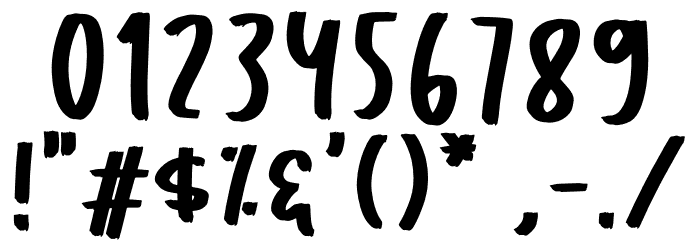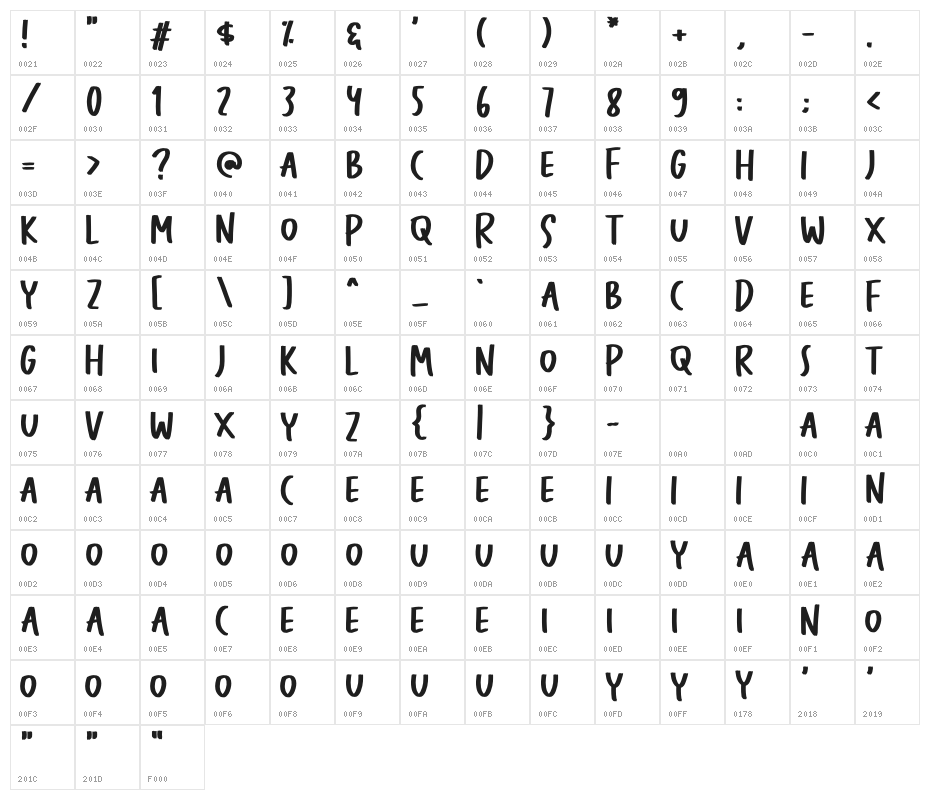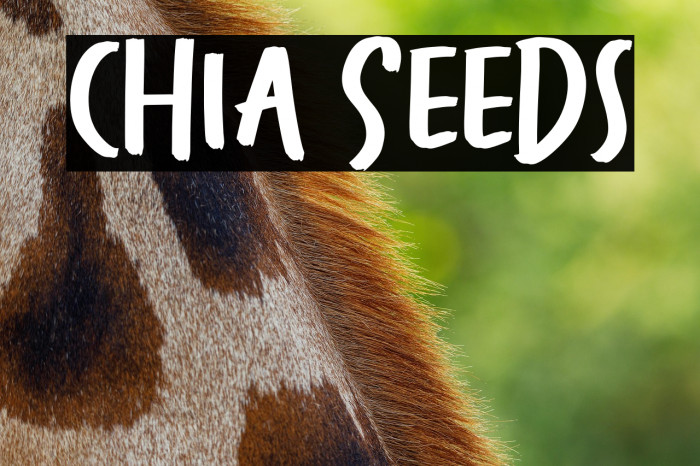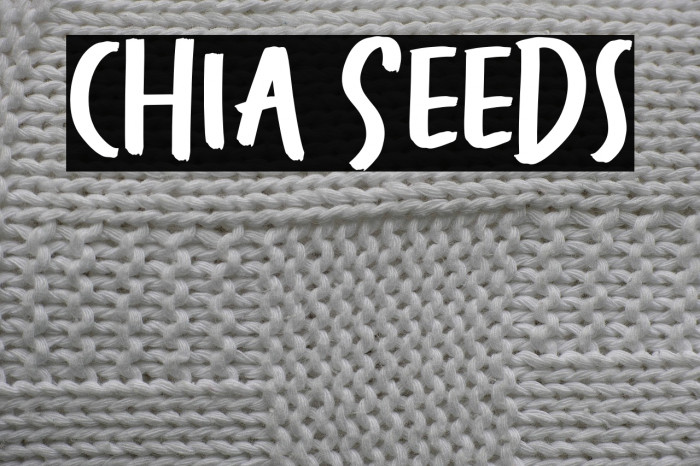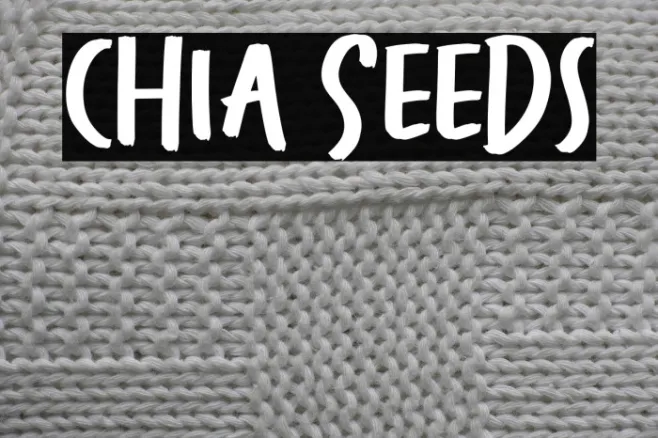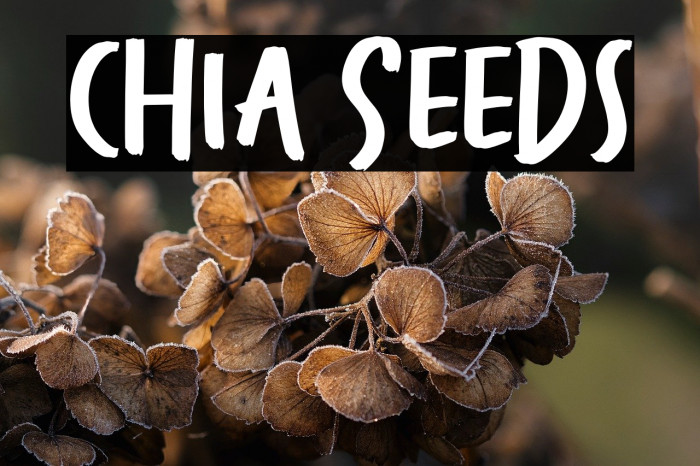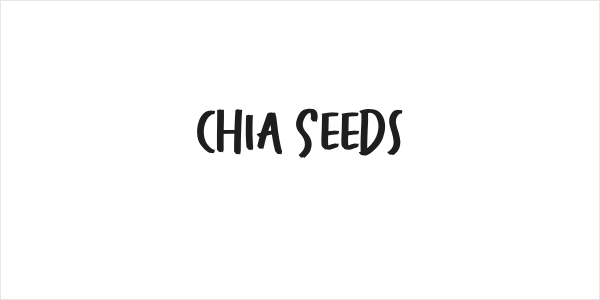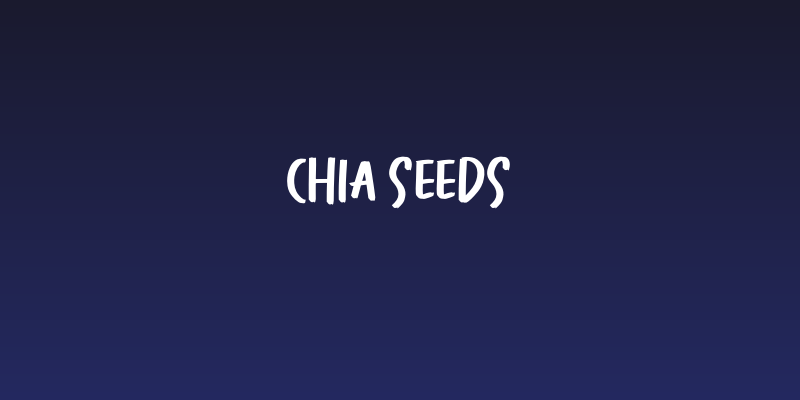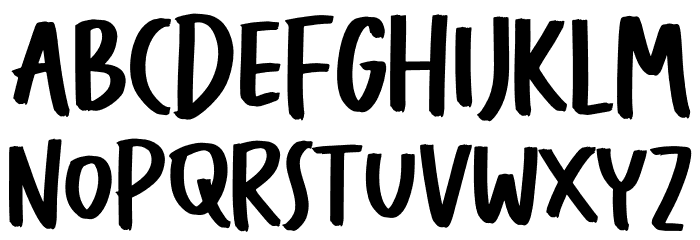
Chia Seeds Font
Chia Seeds Description
This font features a bold and playful handwritten style, characterized by its thick strokes and casual appearance. The letters are slightly irregular, giving it a lively and dynamic feel. The uppercase and lowercase letters maintain a consistent style, with rounded edges and a friendly demeanor. Numbers and special characters are designed to match the overall aesthetic, ensuring a cohesive look across all elements. This font is ideal for projects that require a personal touch or a sense of informality, making it suitable for creative designs, invitations, and branding that seeks to convey warmth and approachability.
| Overall Style | Playful, Casual |
| Proposed Projects | Ideal for invitations, creative branding, social media graphics, and informal event posters. |